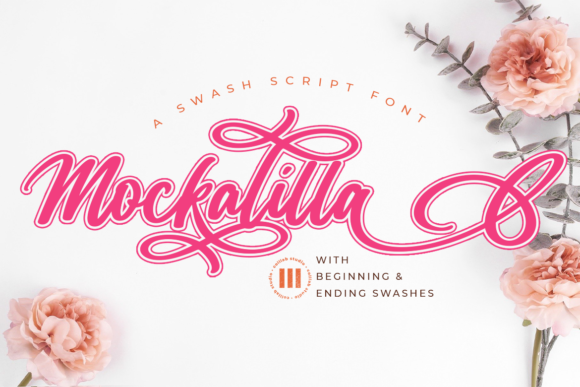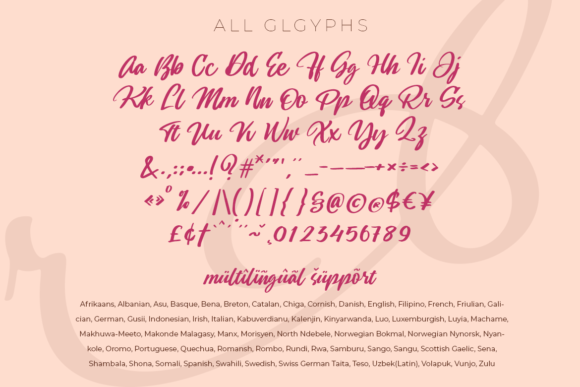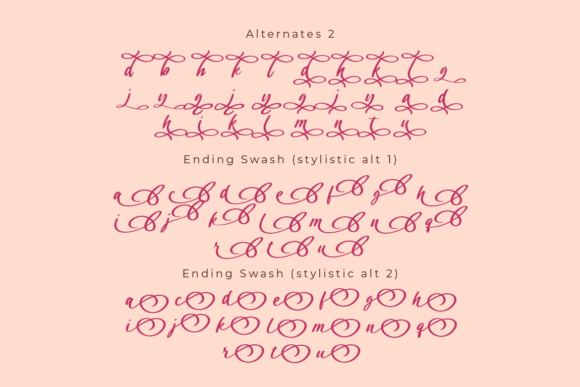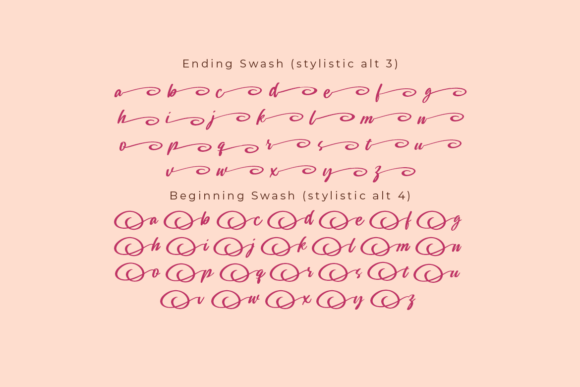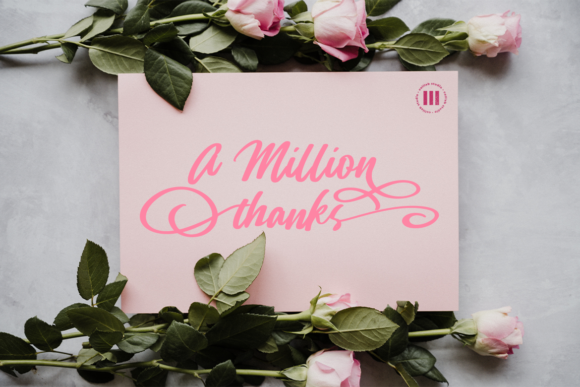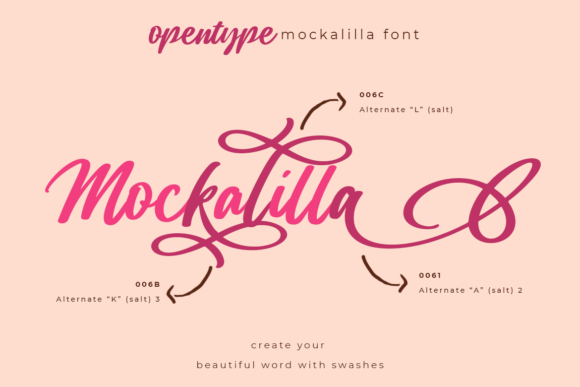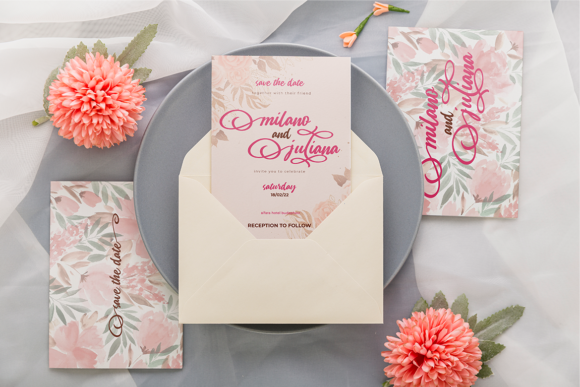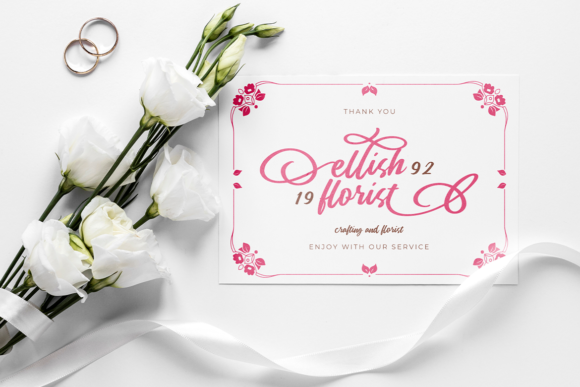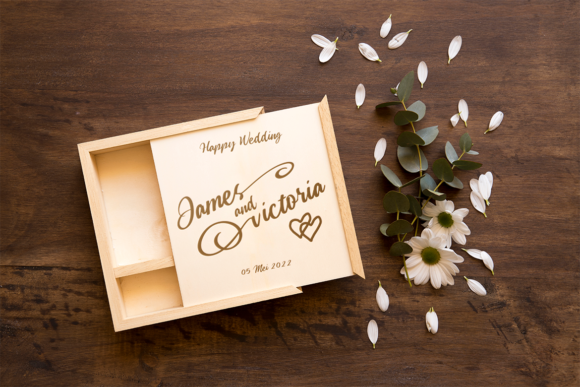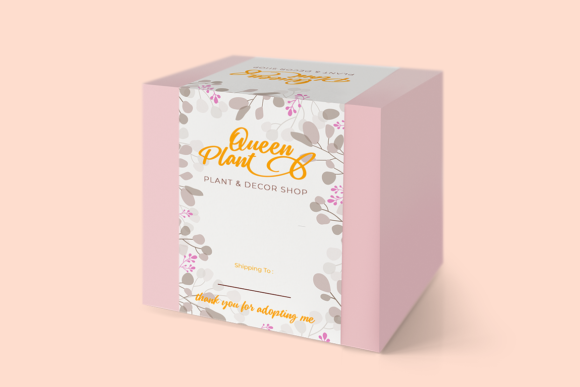
Mockalilla Font
About Mockalilla Font
Mockalilla is a lovely and timeless handwritten font. It is the best choice for creating eye-catching logos, branding, and quotes. Every letter has a unique and beautiful touch, which will make your design come alive!